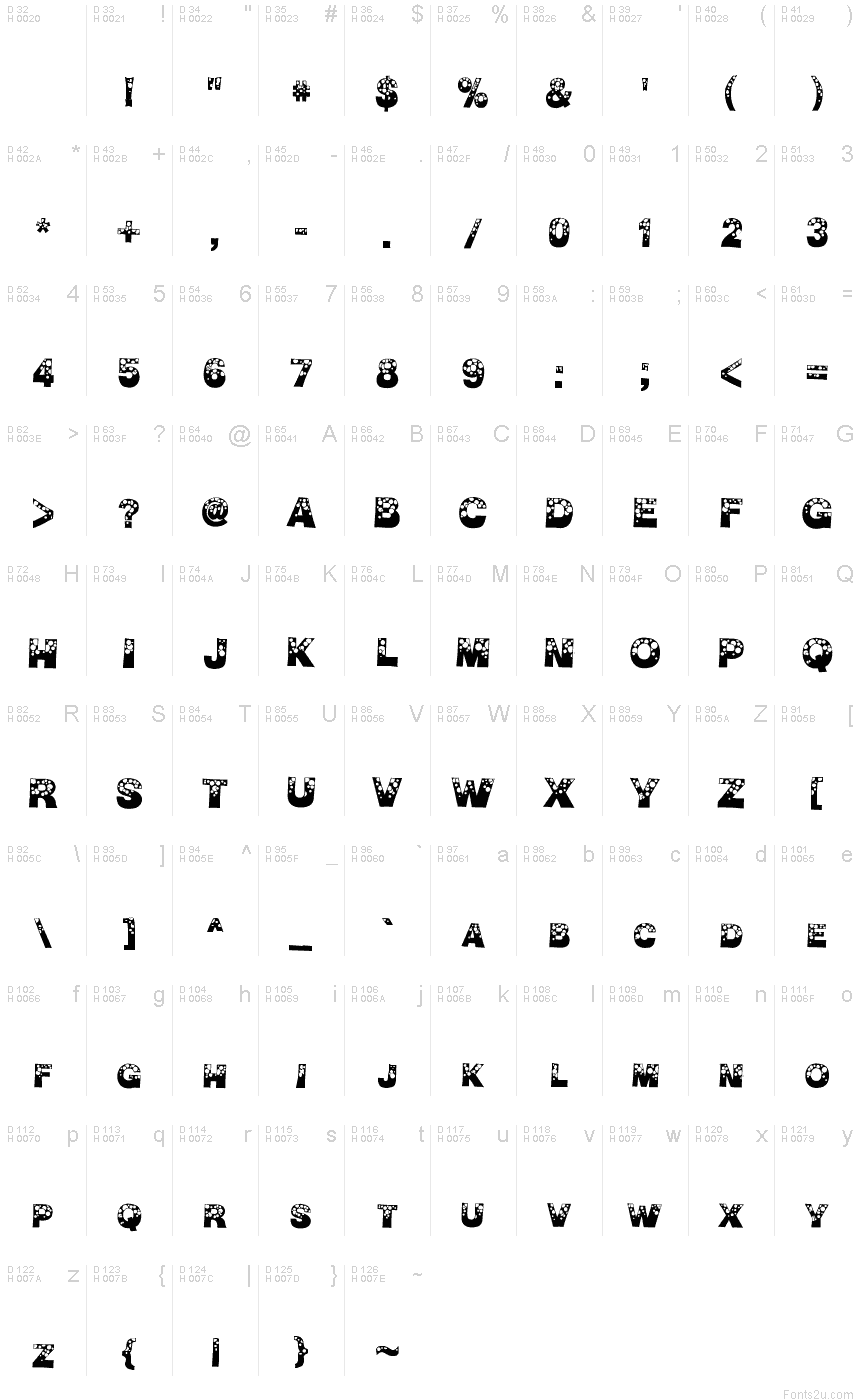
BubbleMan
BubbleMan font by B.O.Nelson is a free decorative display typeface that looks like big, inky letters filled with fizzy bubbles. Thick black forms are punched through with circles of every size, so the text feels like it’s floating in soda foam or bath suds. The uneven rhythm and slightly wobbly silhouettes give it a handmade, cartoonish energy that jumps off the page at large sizes.
Using BubbleMan, your headlines instantly feel fun, messy, and a little wild-great for kids’ party invites, bath or soda packaging, toy branding, YouTube thumbnails, flyers, and comic-style posters. This free font works best when you let it breathe on bright backgrounds and pair it with a simple sans serif for small supporting text.